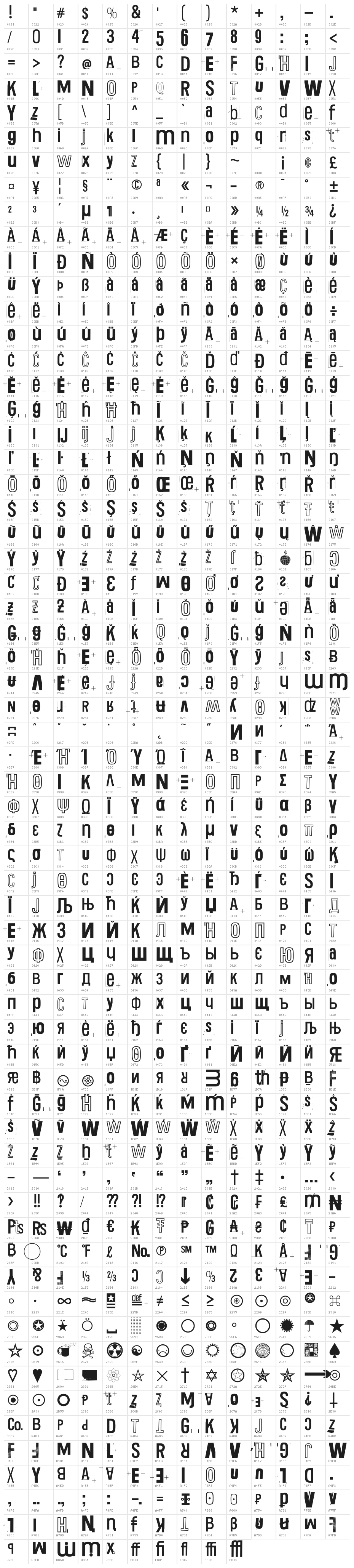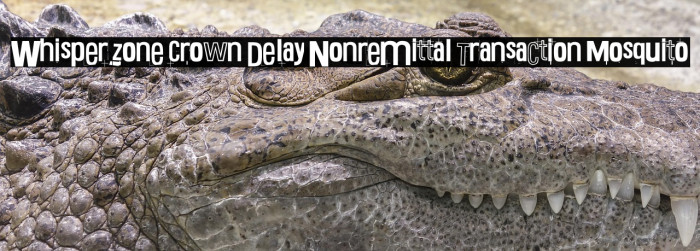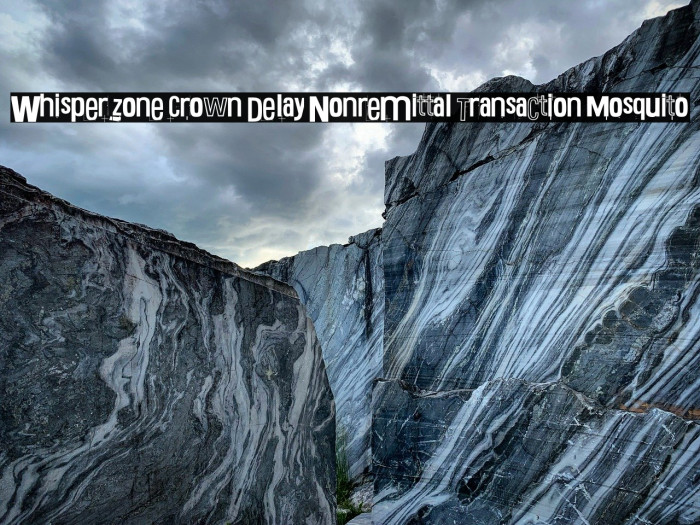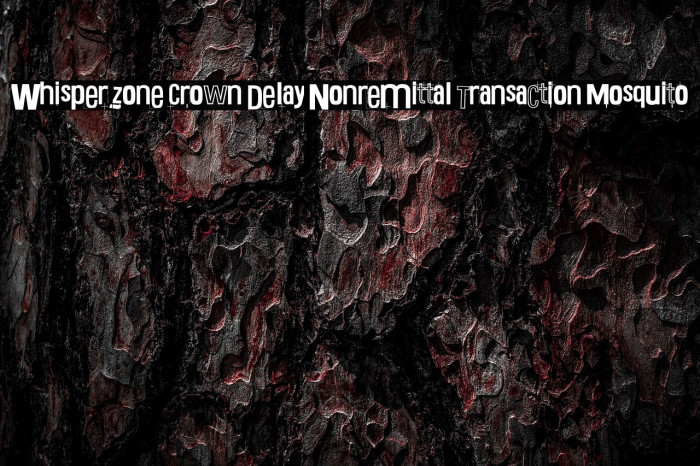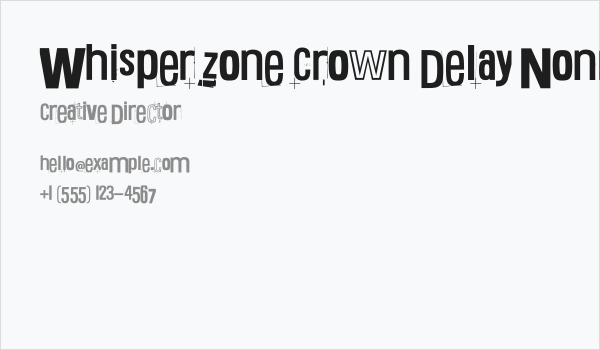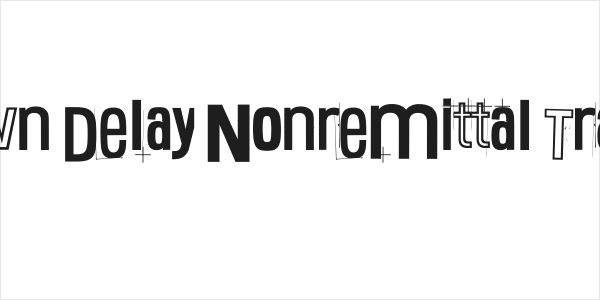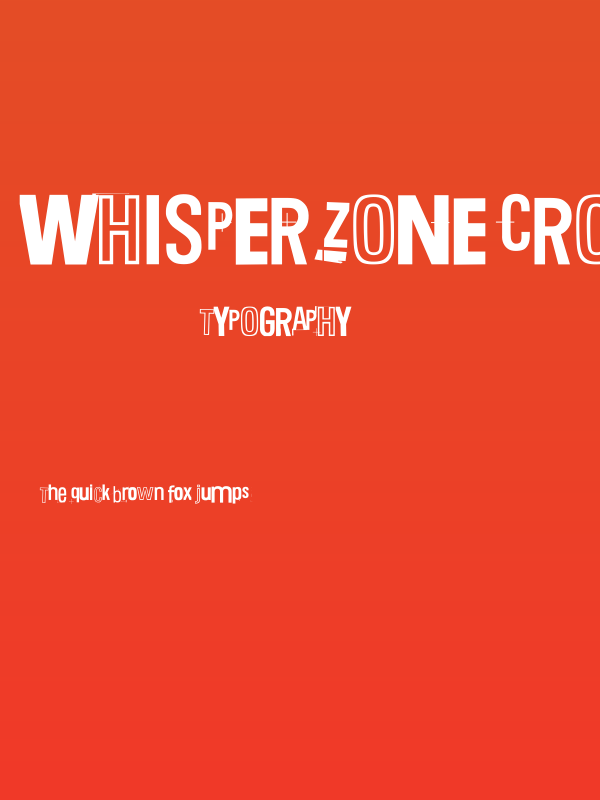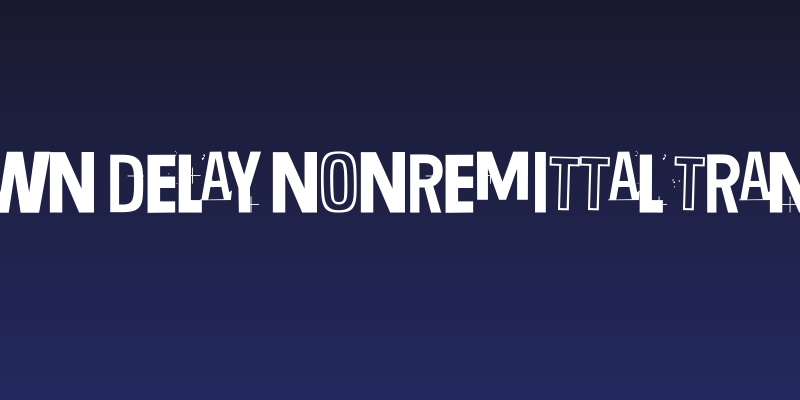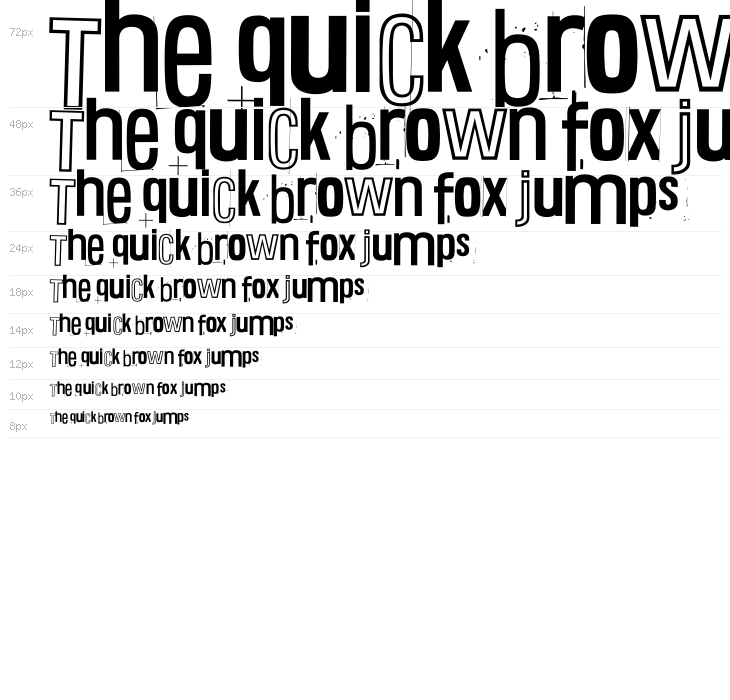
Whisper Zone Crown Delay Nonremittal Transaction Mosquito Font
Whisper Zone Crown Delay Nonremittal Transaction Mosquito Description
This font is a bold and eclectic display typeface that combines various styles within its character set. Each letter exhibits unique design elements, from solid fills to outlined forms and dotted patterns. The uppercase letters are particularly striking, with some featuring shadow effects and others having a more minimalist approach. The lowercase letters maintain a consistent height, providing a balanced look. Numbers and special characters follow the same diverse style, making the font versatile for creative projects. The overall appearance is modern and artistic, suitable for eye-catching designs.
| Overall Style | Modern, Artistic |
| Proposed Projects | Ideal for posters, branding, album covers, and creative advertising campaigns. |